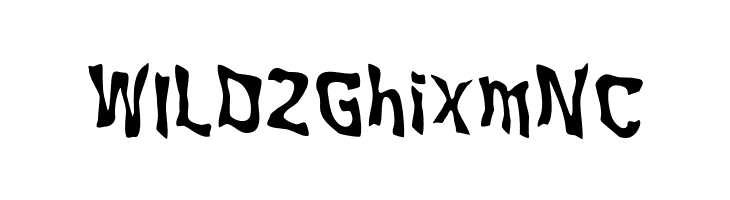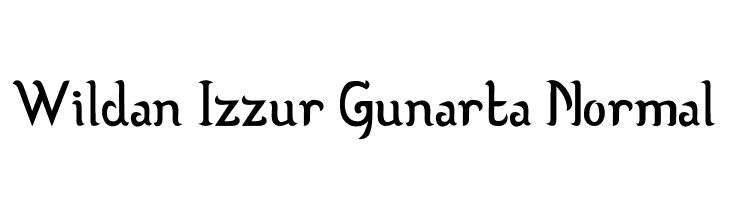
A bold, 3D outline font with a Western-inspired style.
A bold, decorative font with a Western theme and three-dimensional appearance.
Illustrative display font with Western historical and mythological themes.
A bold, angular font with a modern Blackletter style.
A bold, playful font with a hand-drawn, irregular style.
A graceful, flowing script font with a handwritten style.
A bold, italic, and dynamic font with a strong sense of motion.
A bold, slab serif font with a vintage western style.
A graceful script font with fluid, connected strokes and elegant flourishes.